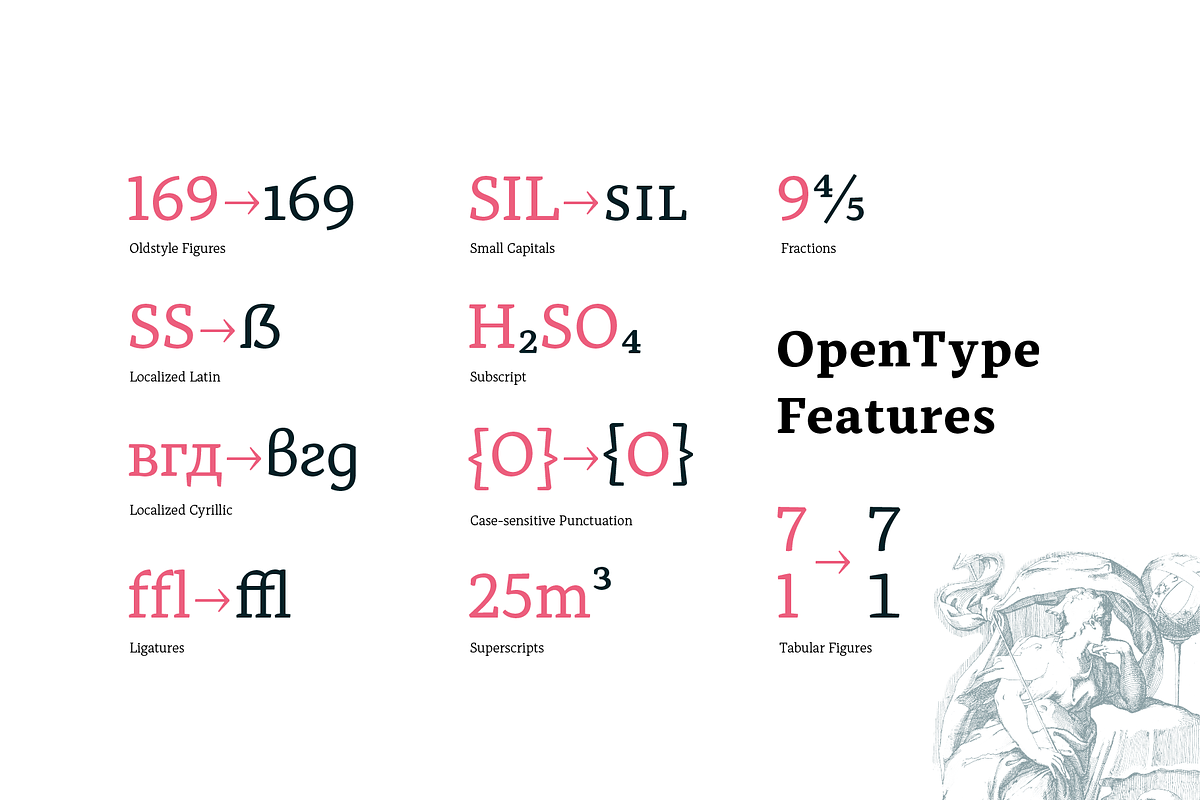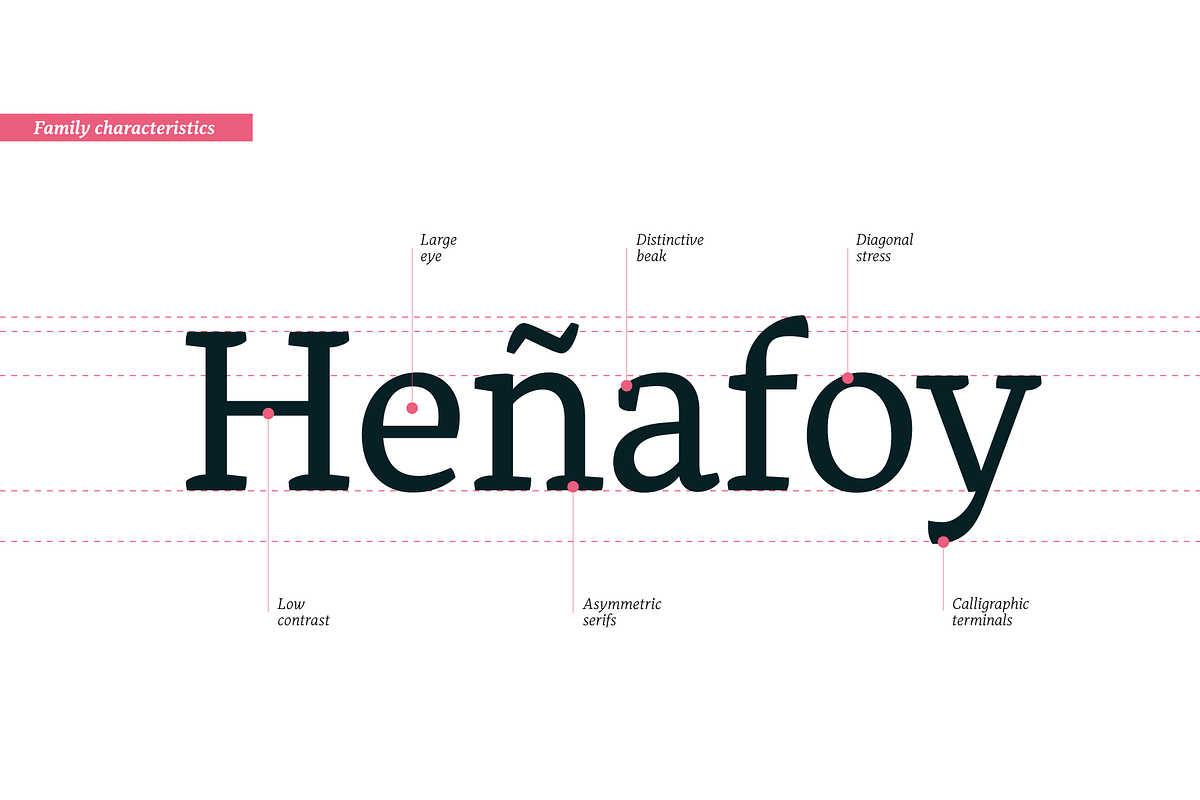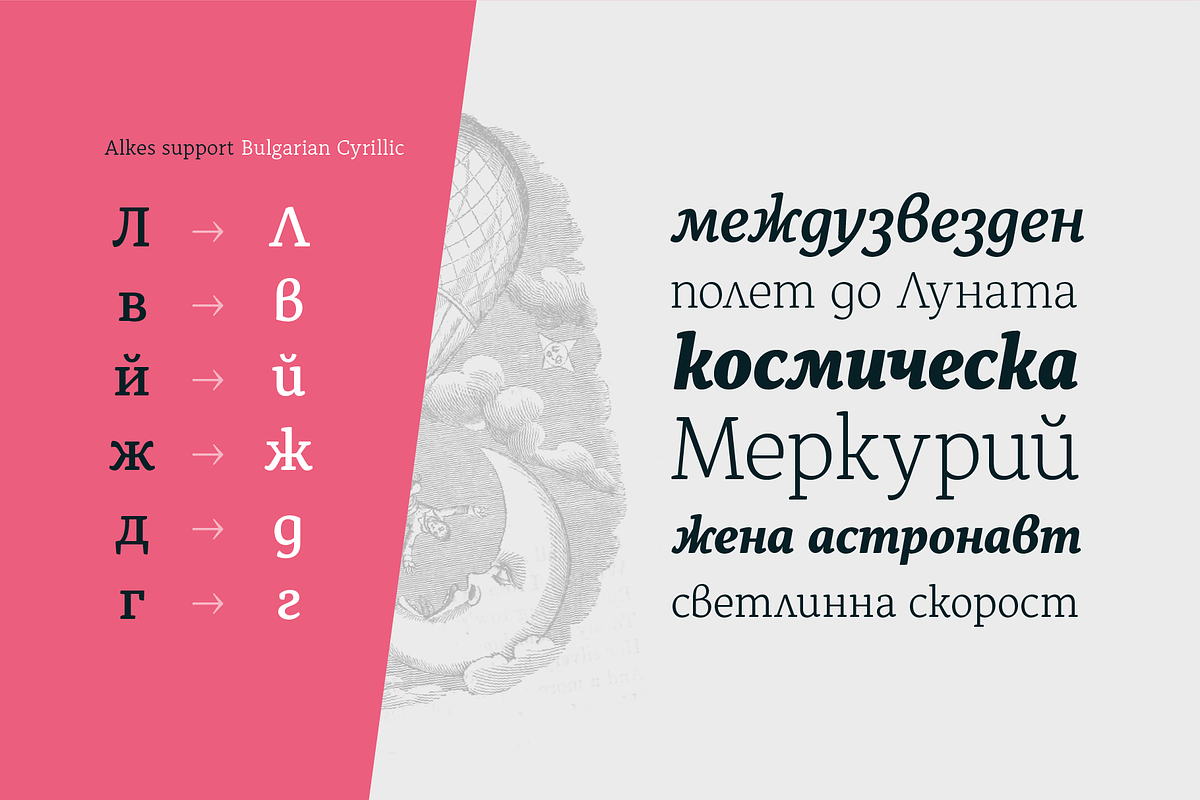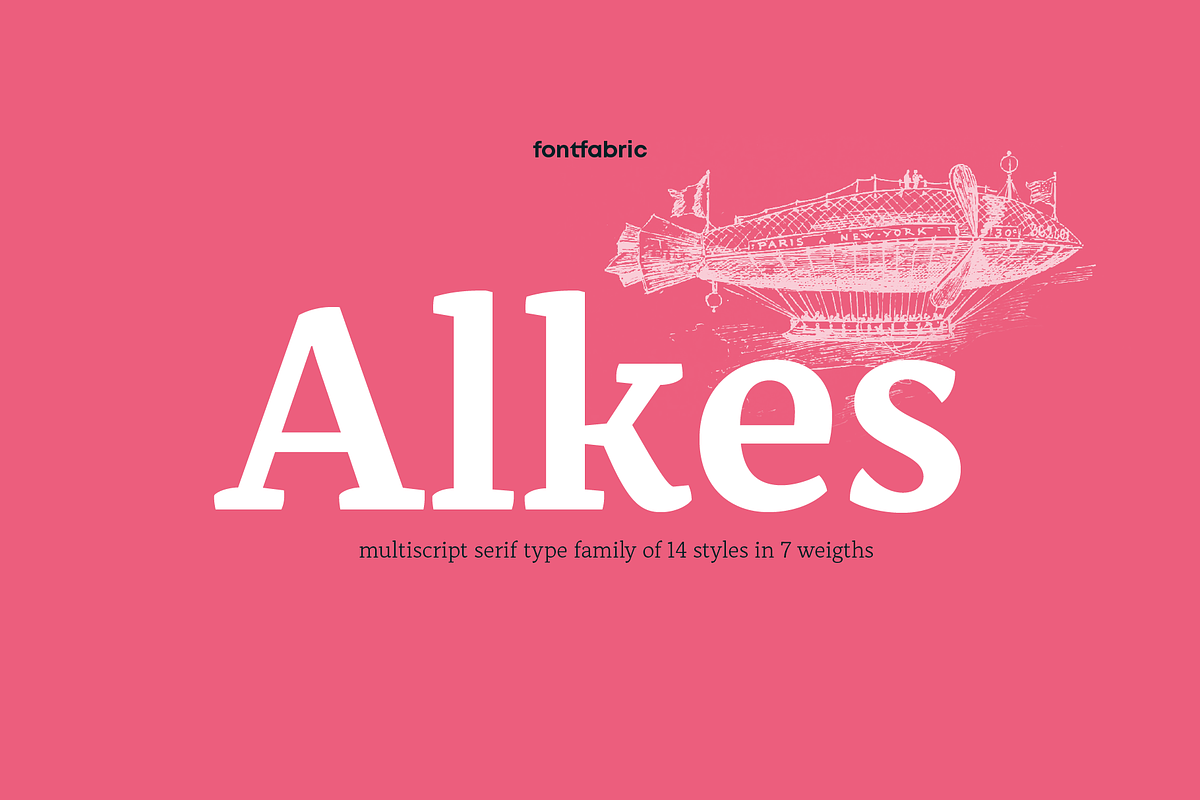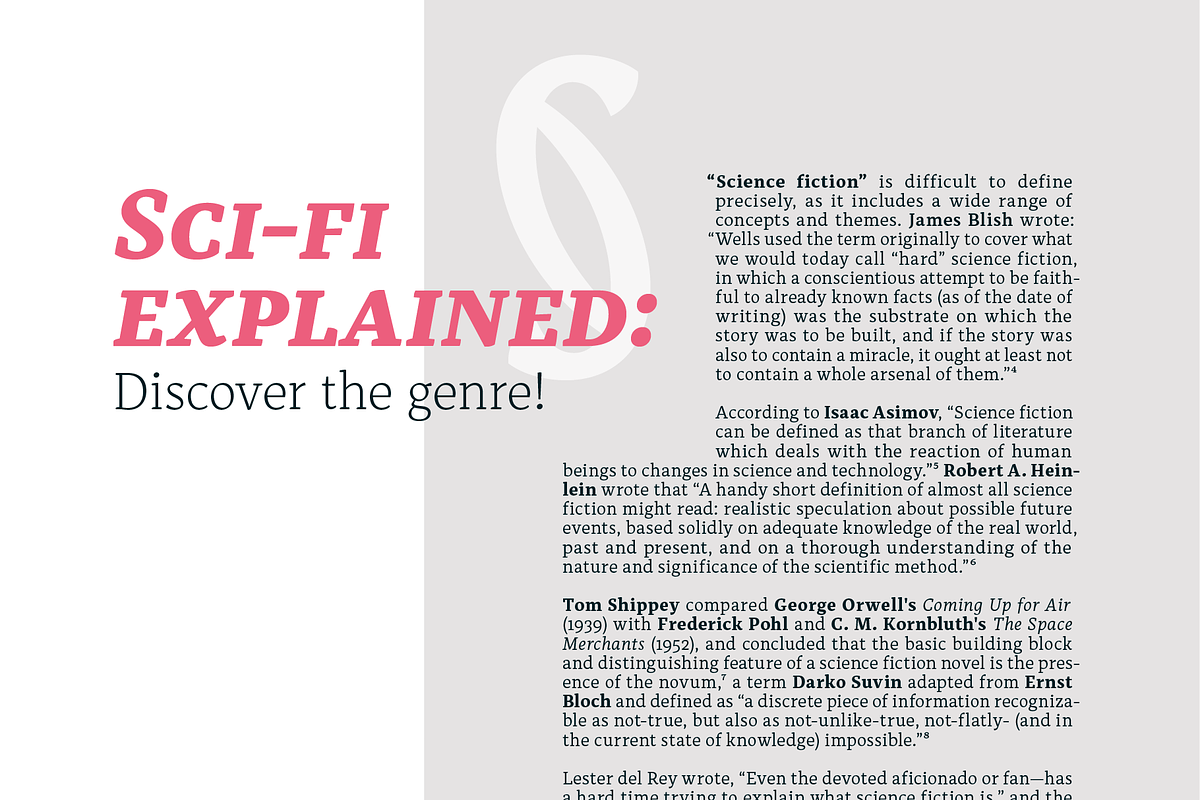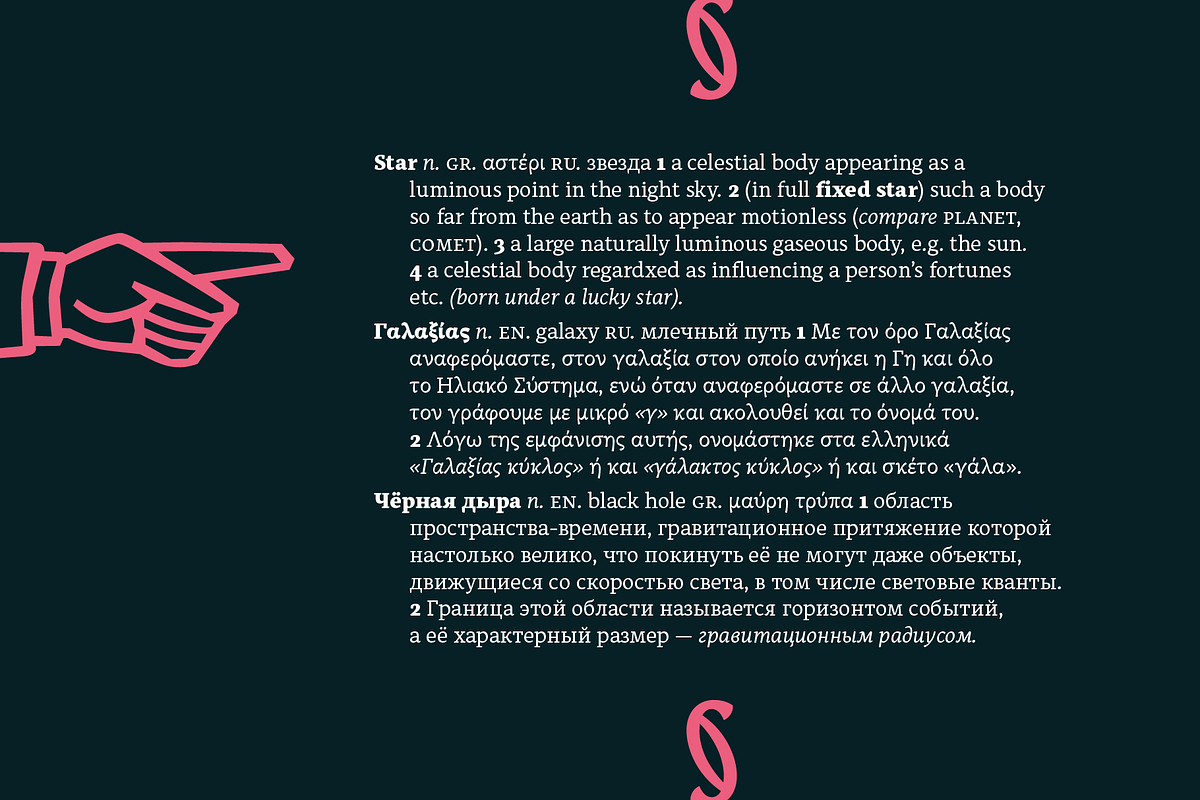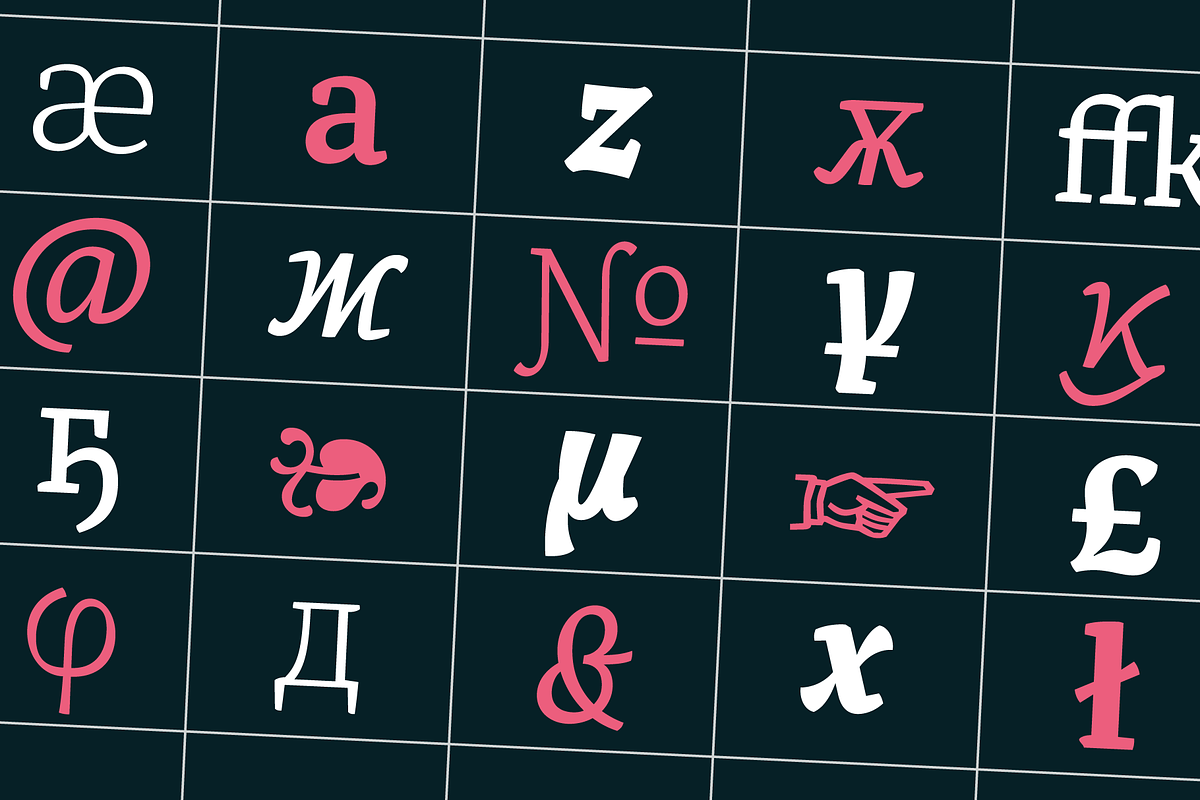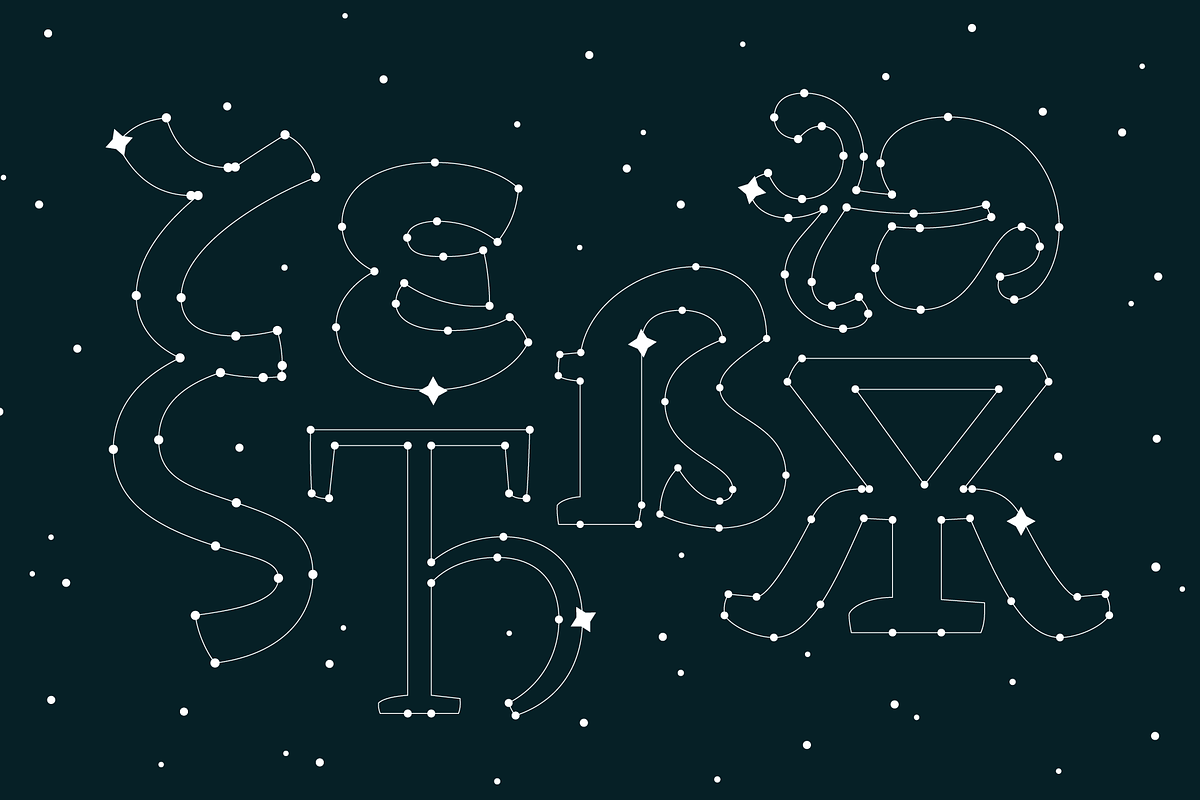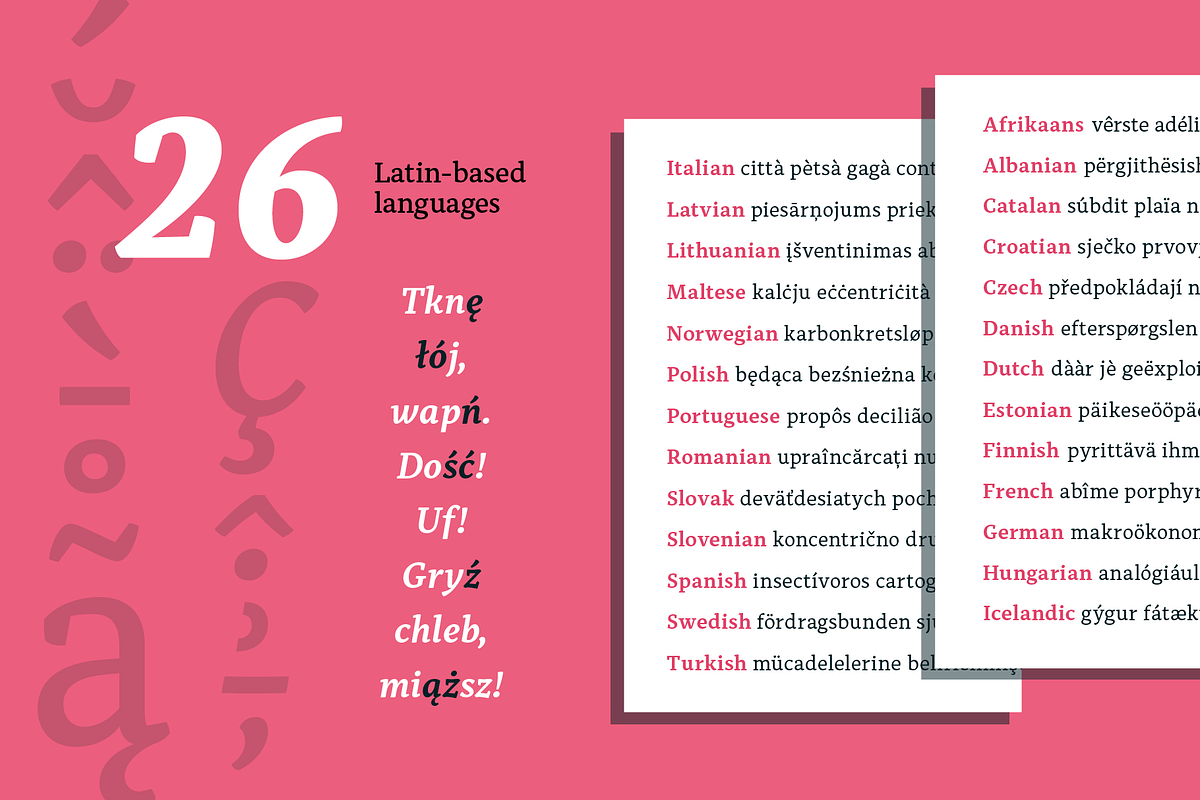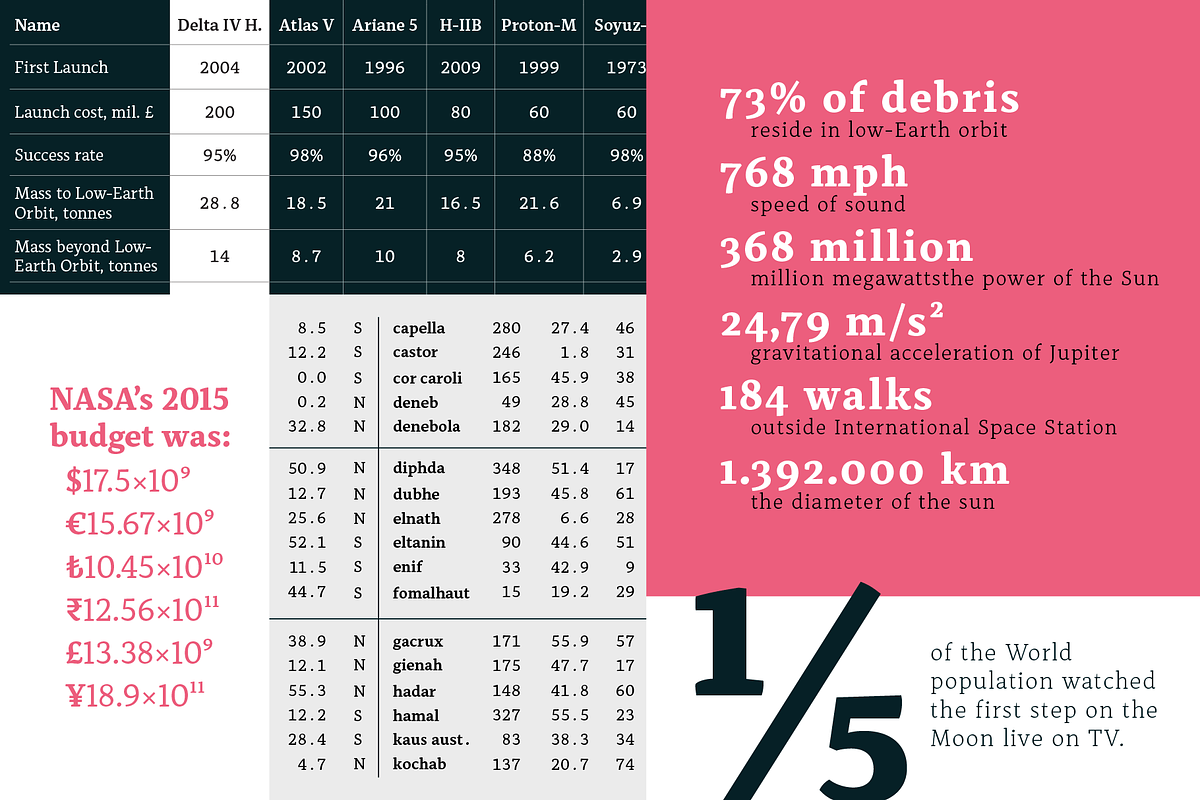
Alkes
- Over 1200 glyphs in 14 styles;
- True form of italics;
- Humanist character and proportions;
- Extended Latin, Extended Cyrillic & Greek scripts;
- For more than 130 languages
- Moderate contrast;
- Perfect for text, headlines and web;
- Coverage of many OpenType features
- Ligatures, Small Caps, Case sensitive forms, OldStyle figures, Tabular figures, Fractions
Named after a star and inspired by the cosmos, Alkes traveled a long way from a graduation project to a published multiscript serif type family. Designed with the intention of harmonizing between three scripts - Latin, Cyrillic and Greek, the contemporary, yet well defined humanist serif combines the best out of the digital and analog worlds.
Featuring a generous x-height, wide letter spacing, large open counters and angled stress contrast, Alkes is highly effective for editorials and publishing, where long texts and legibility are the key forces. Its attractive details, calligraphic structure and asymmetrical serifs shine through in the larger sizes and make Alkes suitable for headlines.
Alkes has a pull with editorial designers, graphic designers and publishers who aim for a clear structure, hierarchy and coherent non-Latin scripts for both print and on-screen environments, in order to achieve otherworldly designs